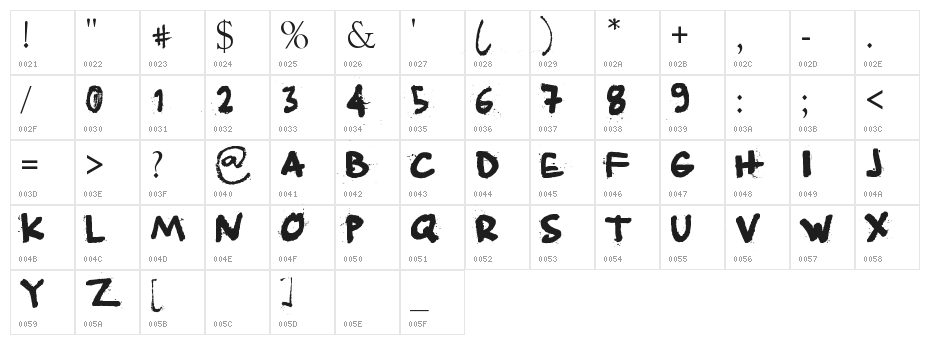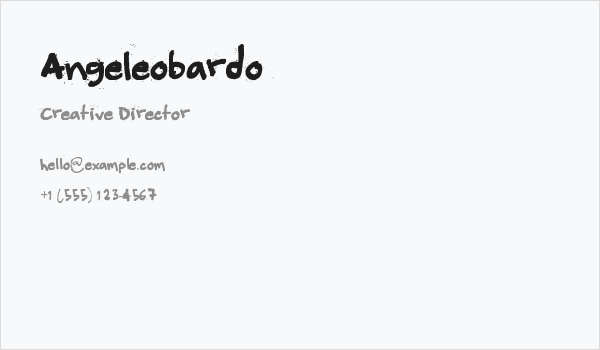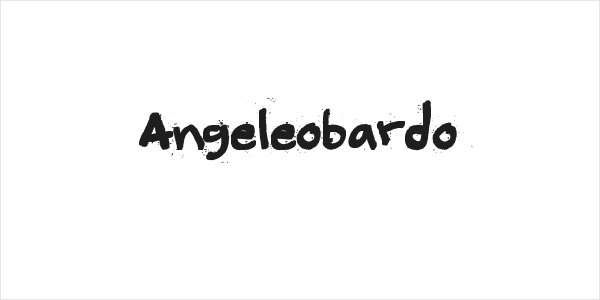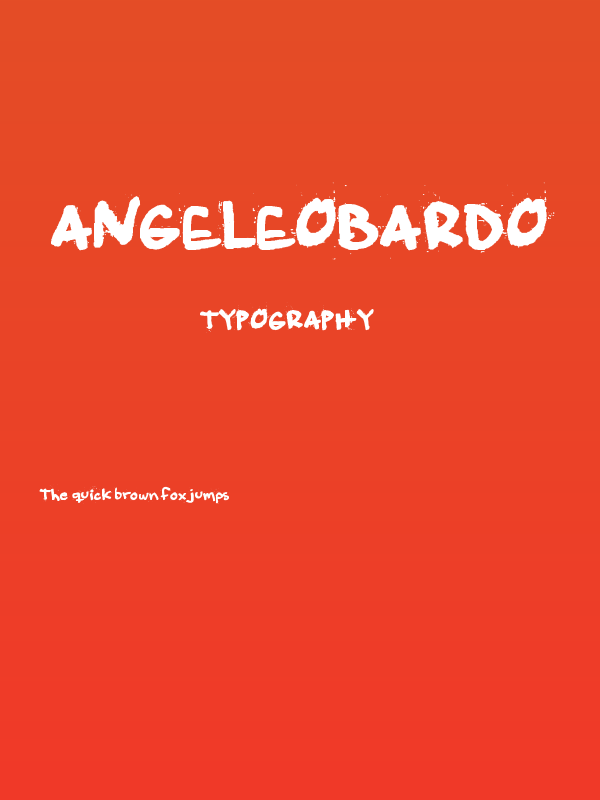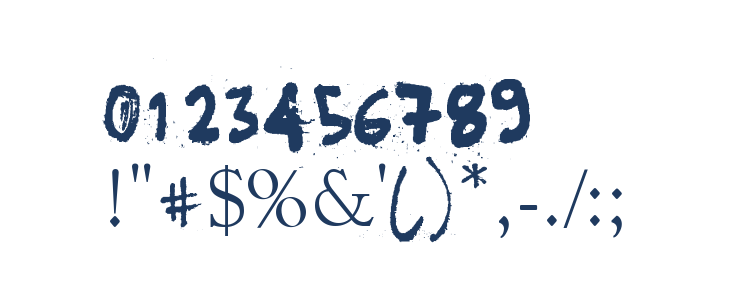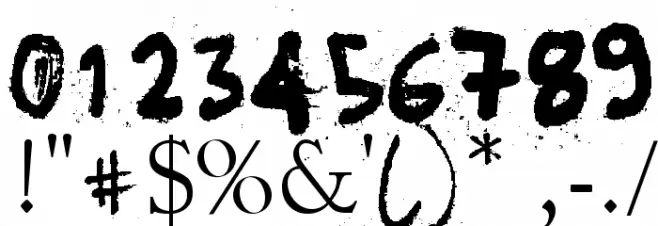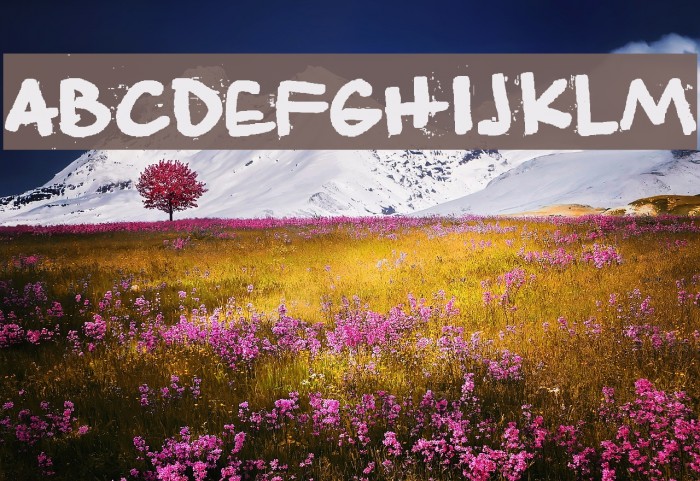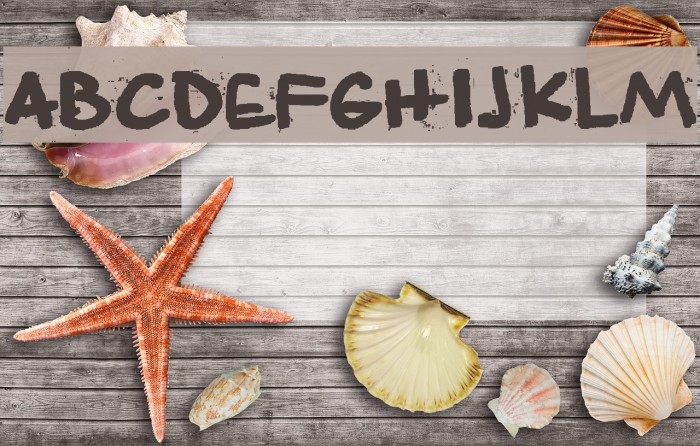
Angeleobardo Font
This font exhibits a bold and expressive handwritten style, characterized by its rough, textured appearance. The letters are irregular and dynamic, giving a sense of spontaneity and energy. The uppercase and lowercase letters maintain a consistent style, with rounded edges and varying stroke thicknesses that add to the font's organic feel. The numbers and special characters follow the same aesthetic, ensuring a cohesive look across all elements. This font's unique, artistic flair makes it stand out, ideal for projects that require a personal touch.
| Use Case | Logos, Posters, Artistic projects |
| Proposed Projects | Perfect for artistic projects, posters, branding, and any design that requires a personal, handcrafted touch. |